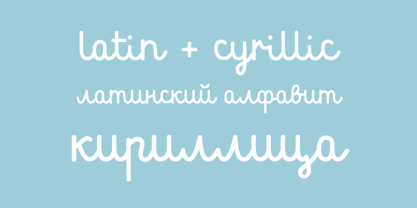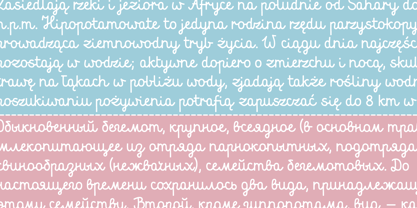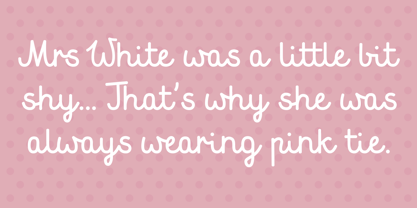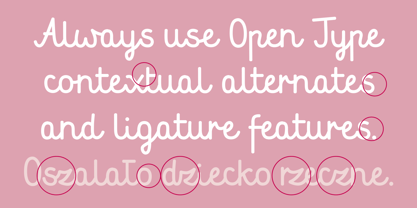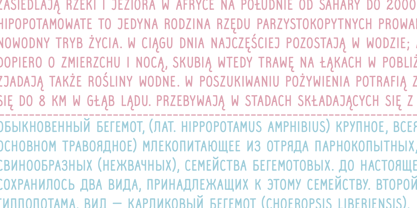
Mrs White Font
This sophisticated typeface is ideal for wedding invitations, branding, packaging, and social media graphics, offering a refined and elegant style.
Mrs White Font excites designers with its delicate, handwritten charm, perfect for adding a touch of class to any project.
The Mrs White Font family includes Regular, Bold, Italic, and Script variants, providing versatile options for creative designs.
If you’re searching for a typeface that exudes elegance and versatility, Mrs White Font Free Download is a perfect choice. This font’s graceful, handwritten aesthetic makes it a standout for projects requiring a personal, sophisticated touch. Whether you’re designing luxurious branding or delicate invitations, Mrs White Font delivers timeless beauty.
This font is a favorite for wedding stationery, including save-the-date cards and thank-you notes, where its flowing style adds romance. It’s also widely used in luxury branding, product packaging, and social media content, where its elegant letterforms enhance visual appeal. Graphic designers and content creators appreciate its ability to elevate minimalist and high-end designs alike.
The excitement around Mrs White Font stems from its ability to blend modern sophistication with classic charm. Its smooth, cursive-inspired design makes it ideal for industries like fashion, beauty, and event planning. The font’s delicate curves and balanced proportions ensure readability while adding a luxurious feel to any project.
The Mrs White Font family offers a range of styles to suit diverse needs. The Regular variant is perfect for body text or subtle accents, while the Bold style makes a statement in headlines. The Italic version adds a dynamic flourish, and the Script variant enhances the handwritten aesthetic for creative projects.